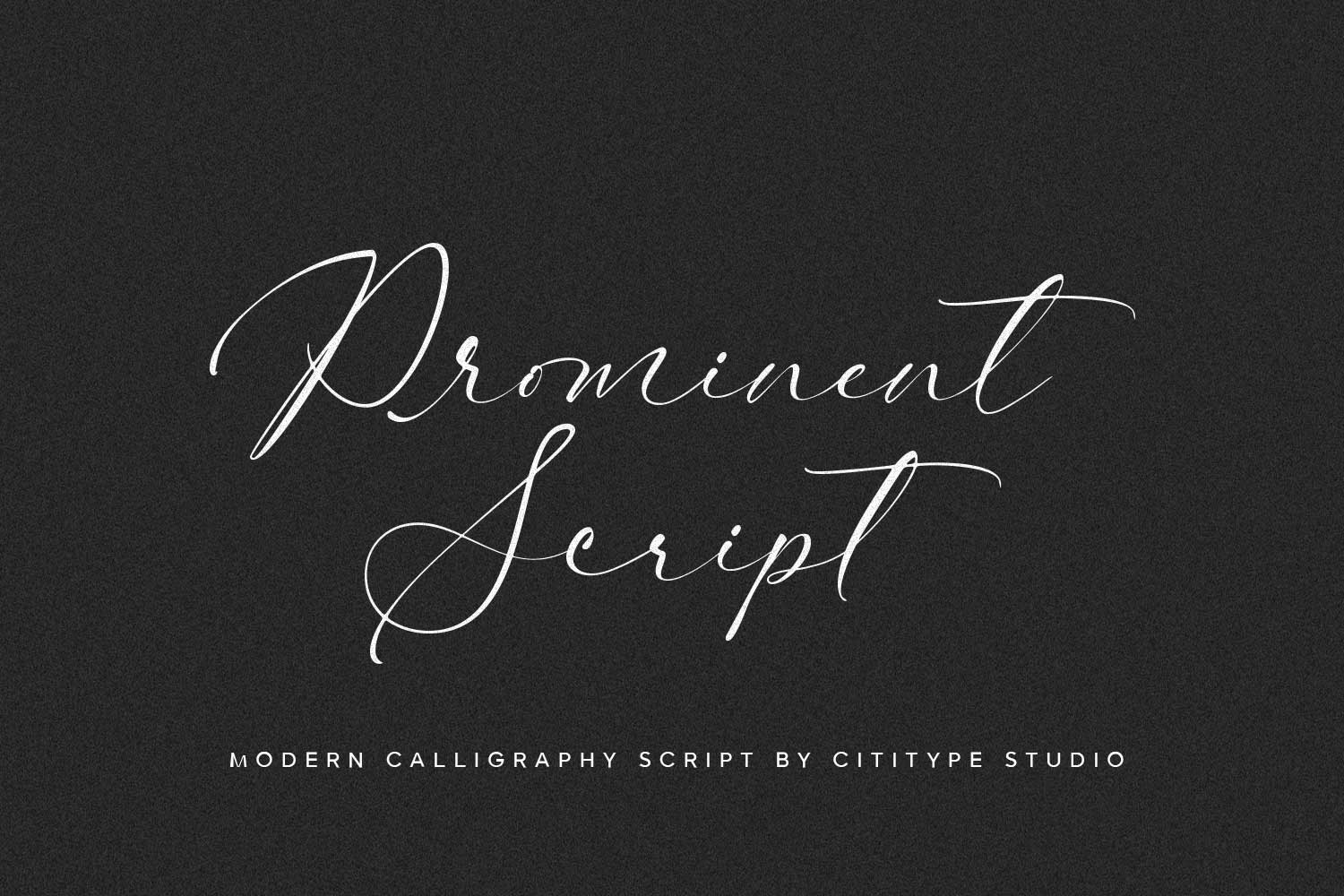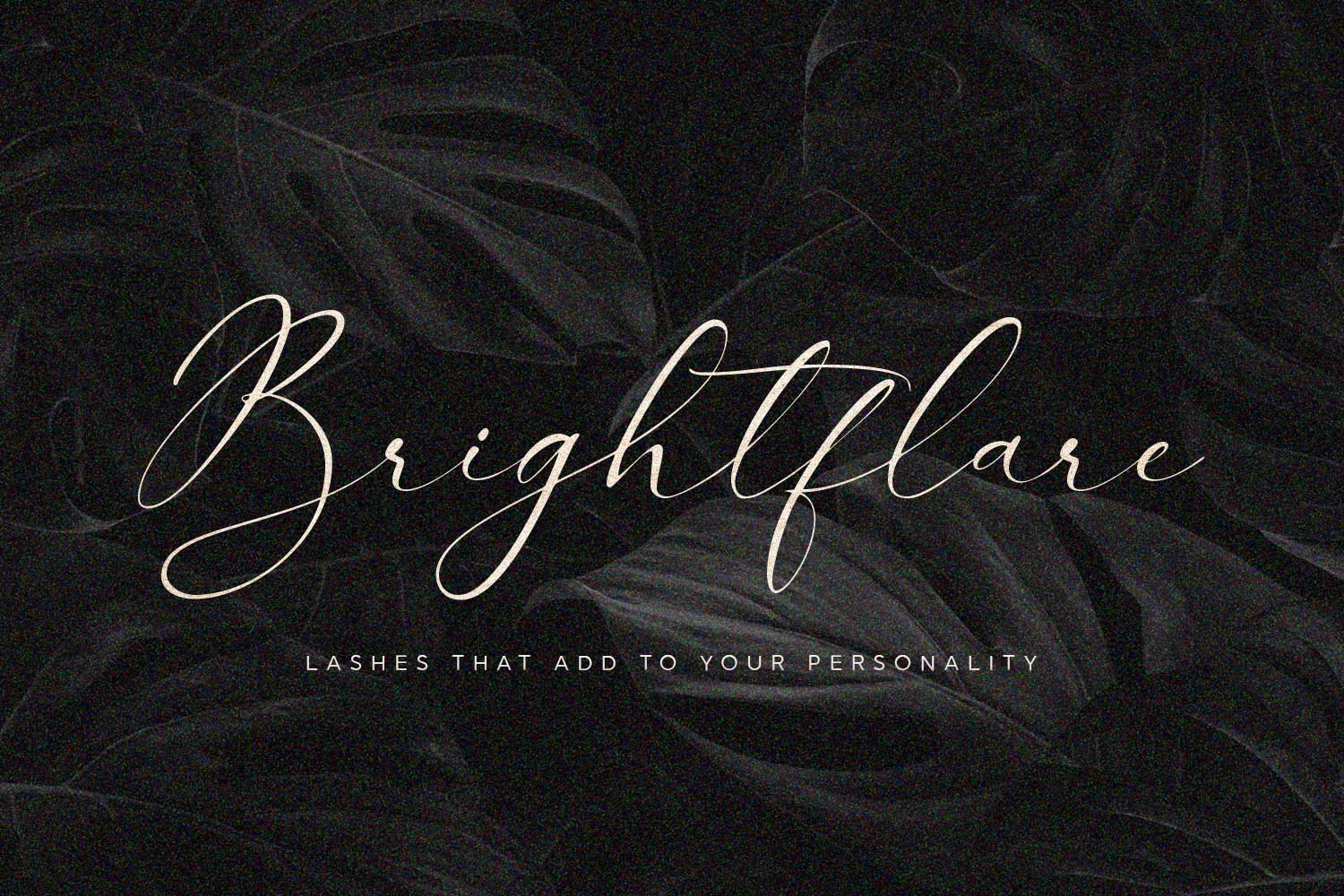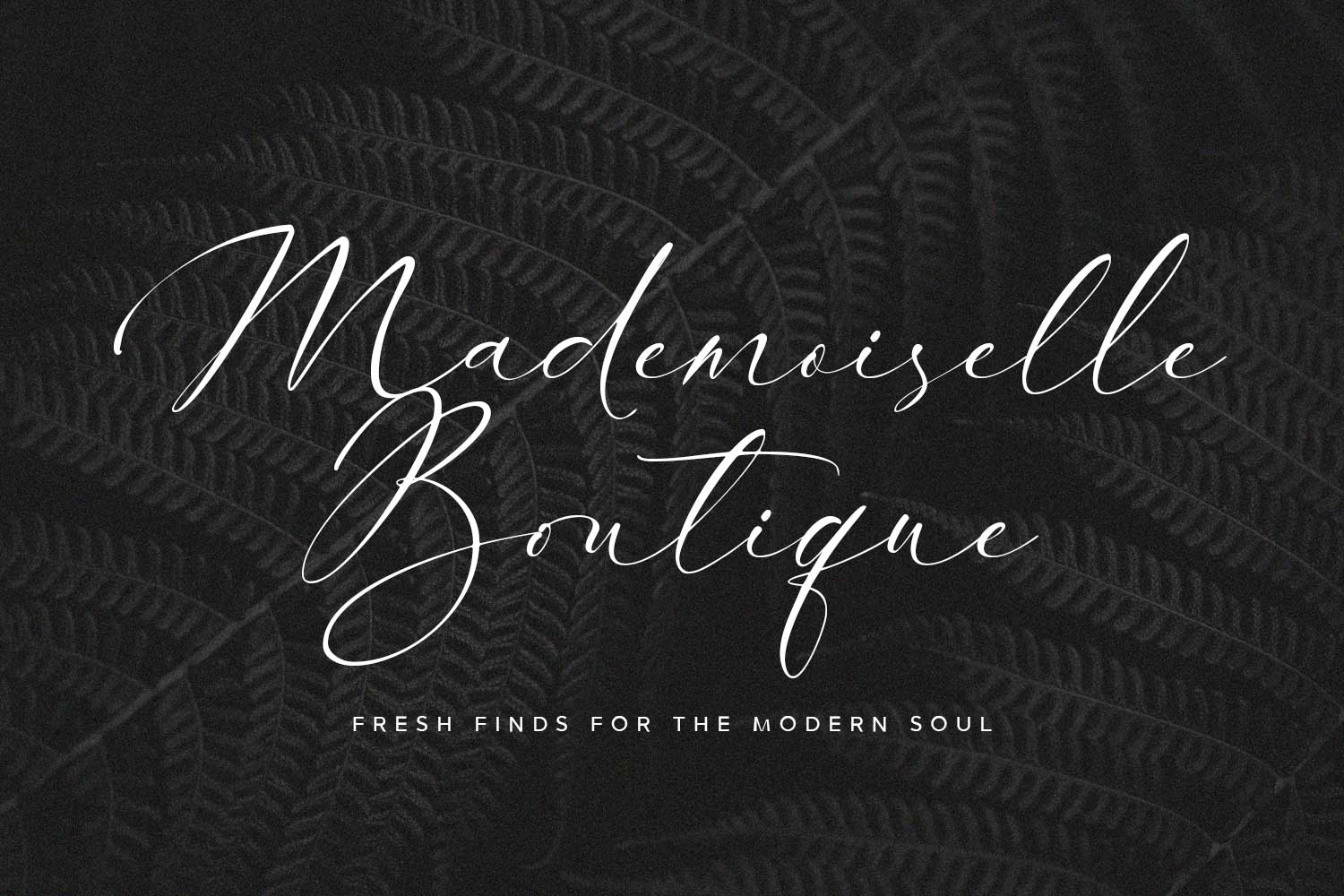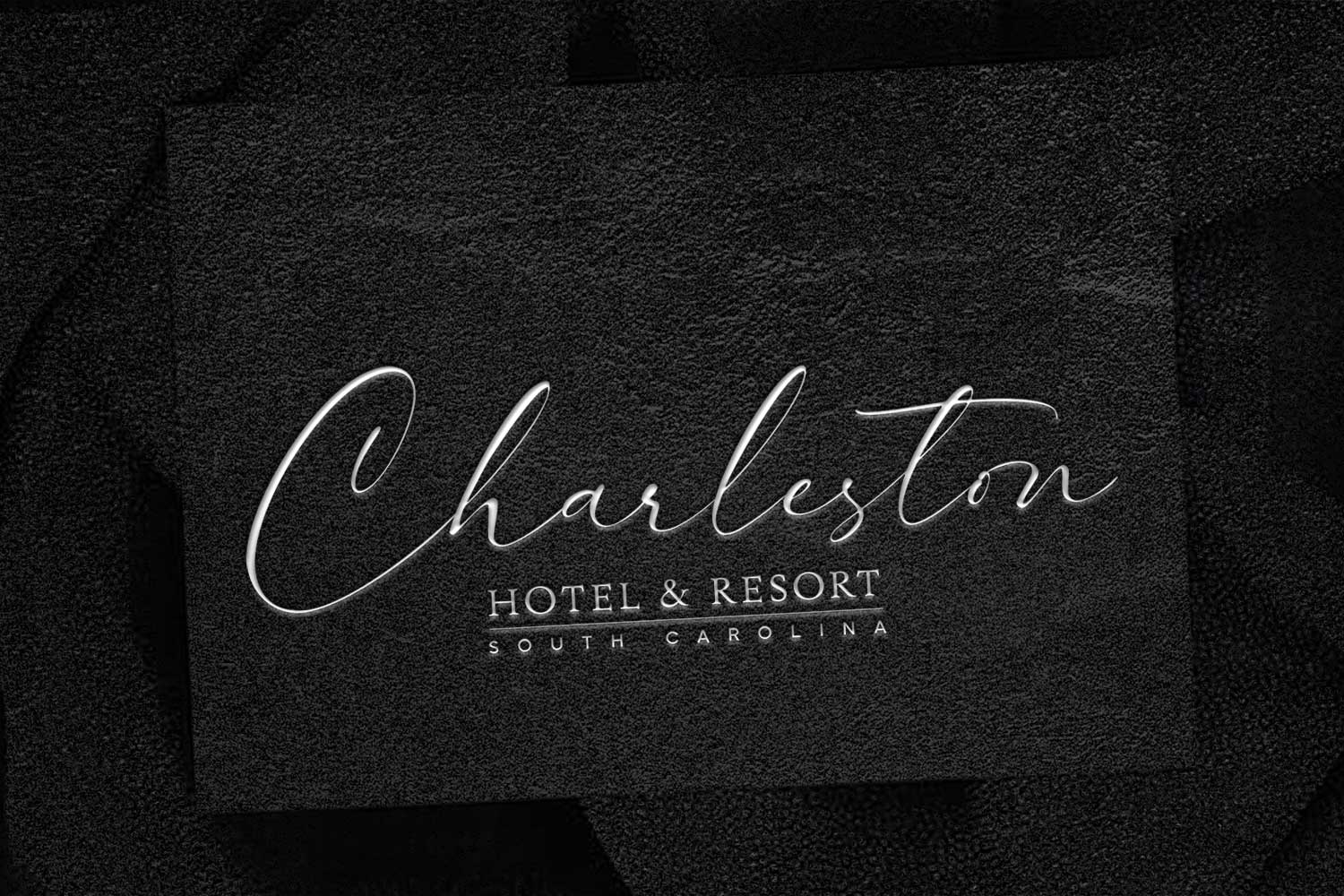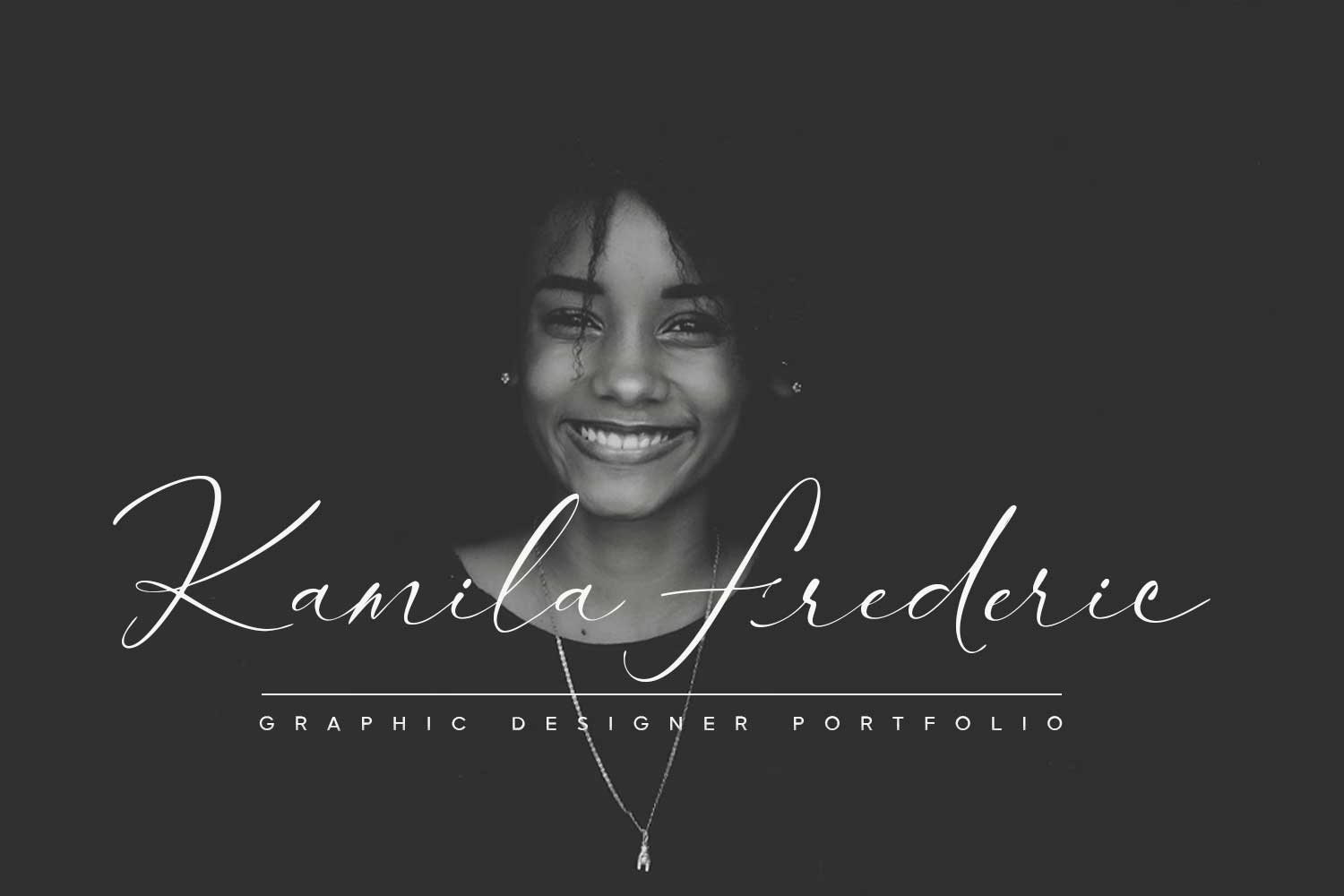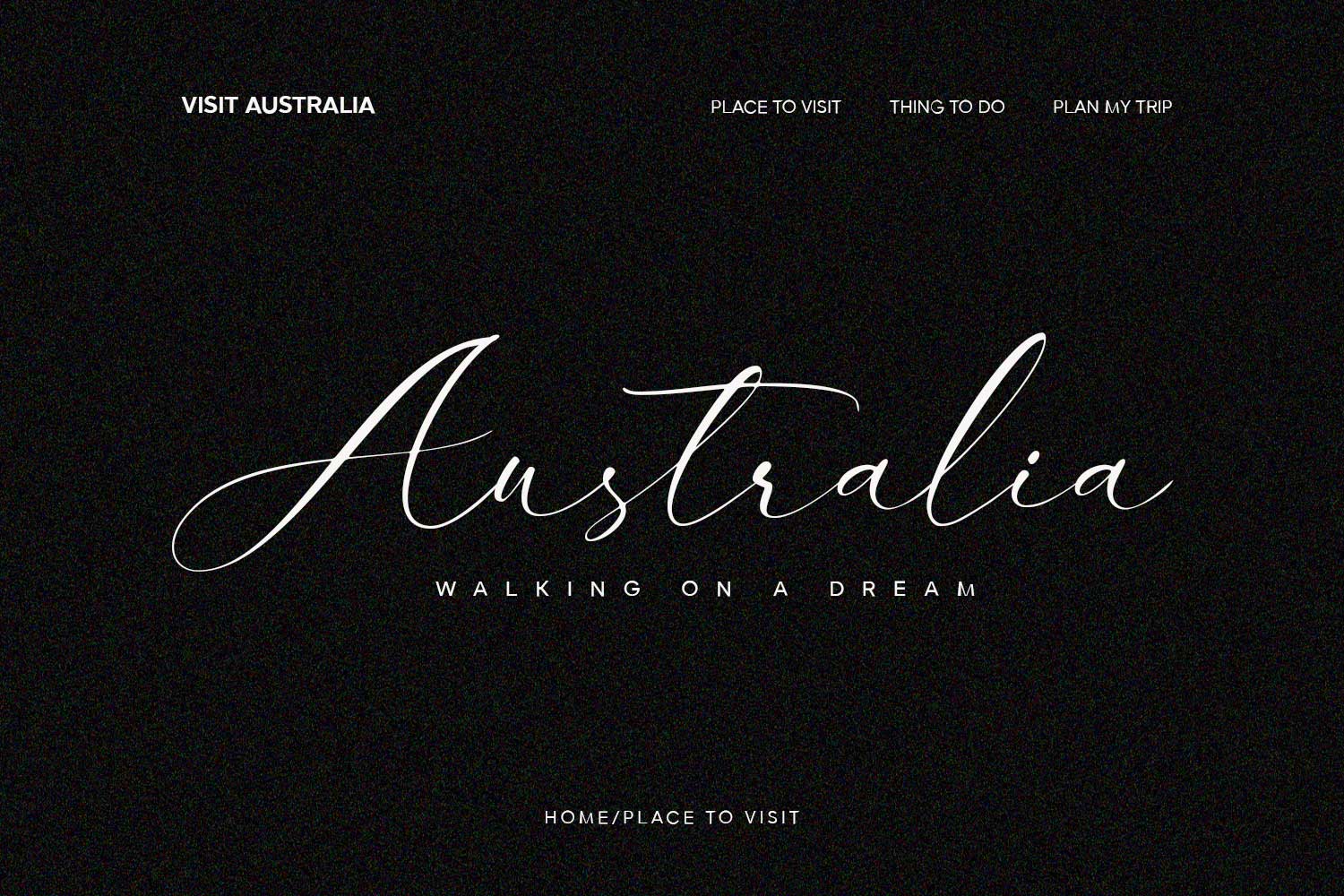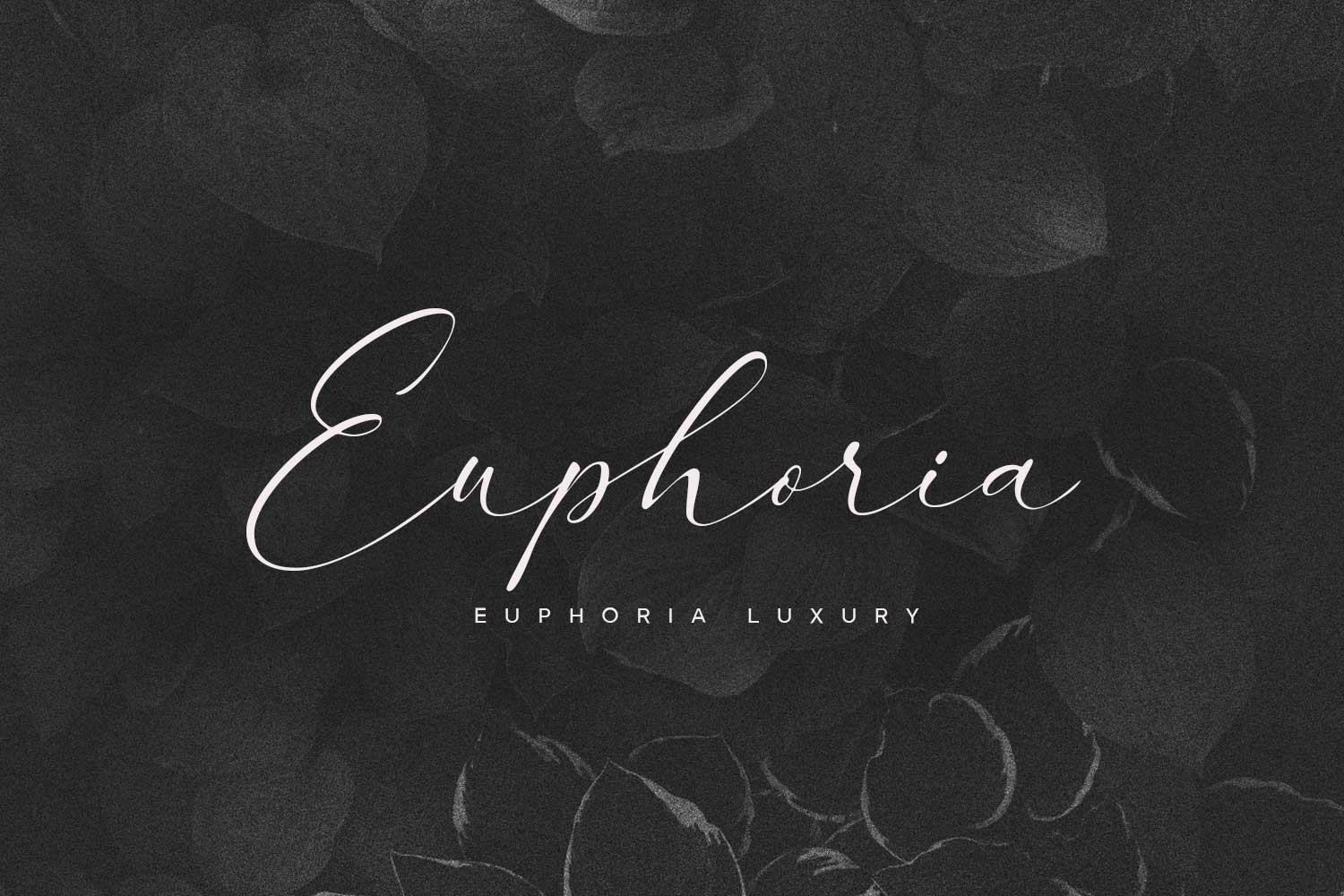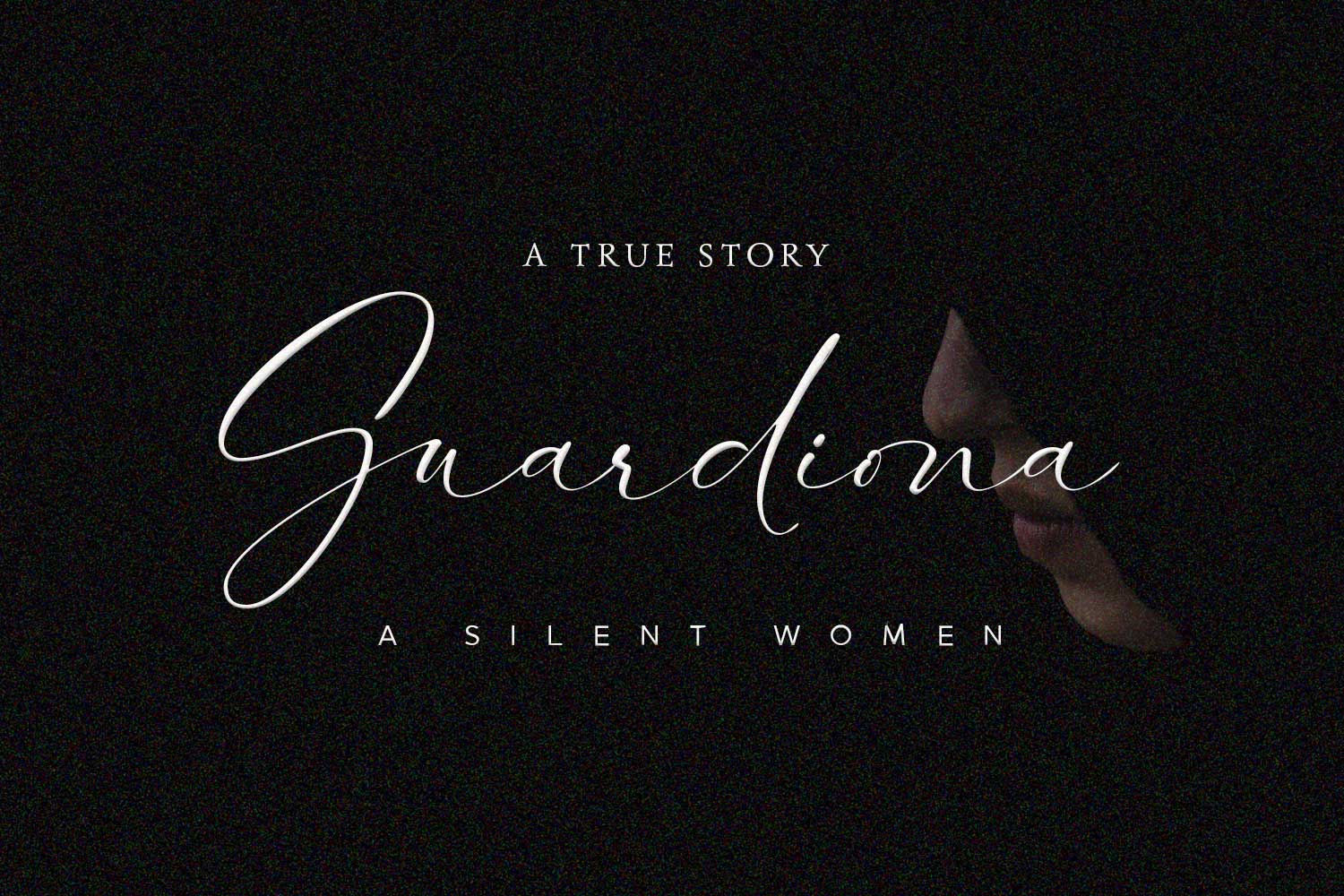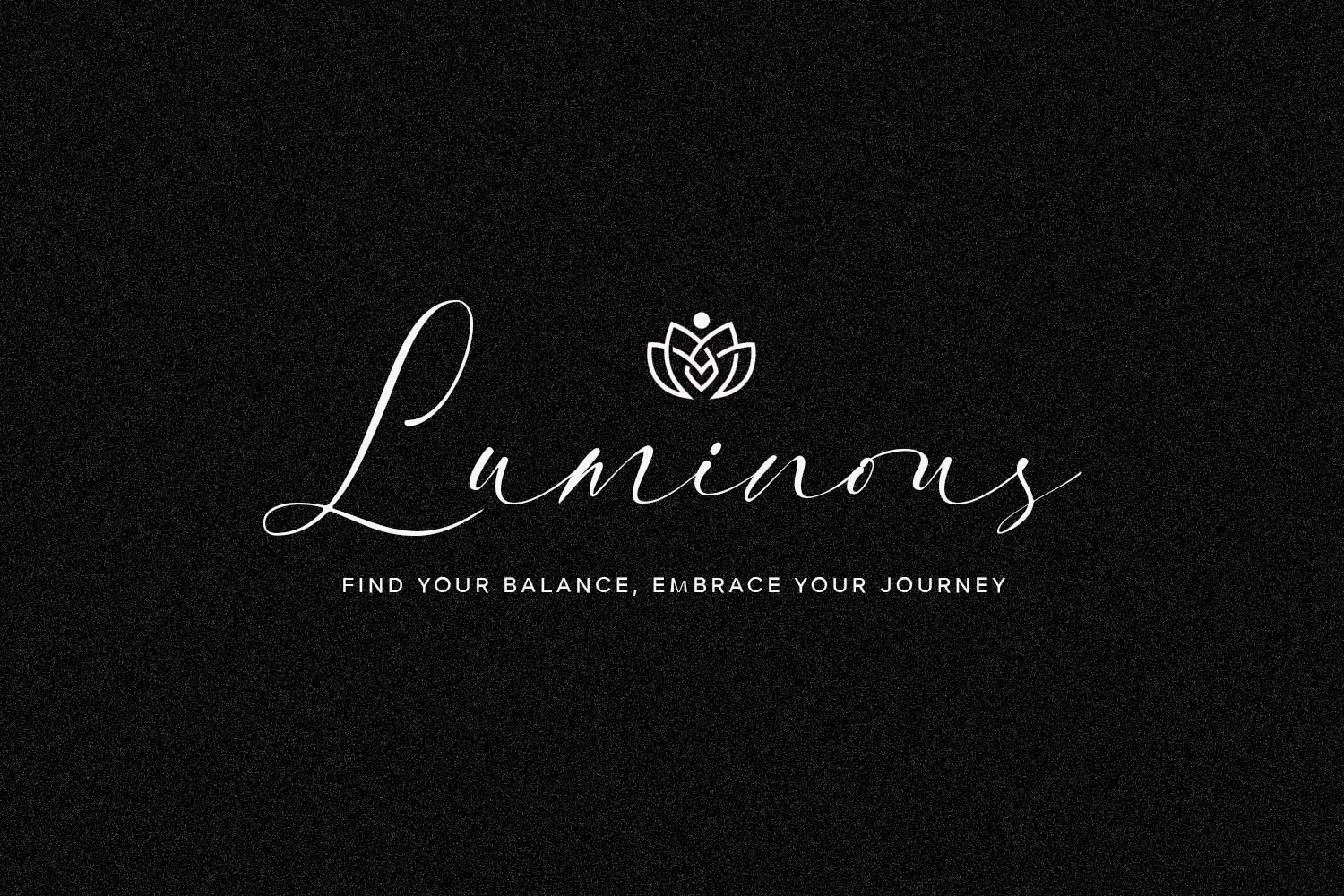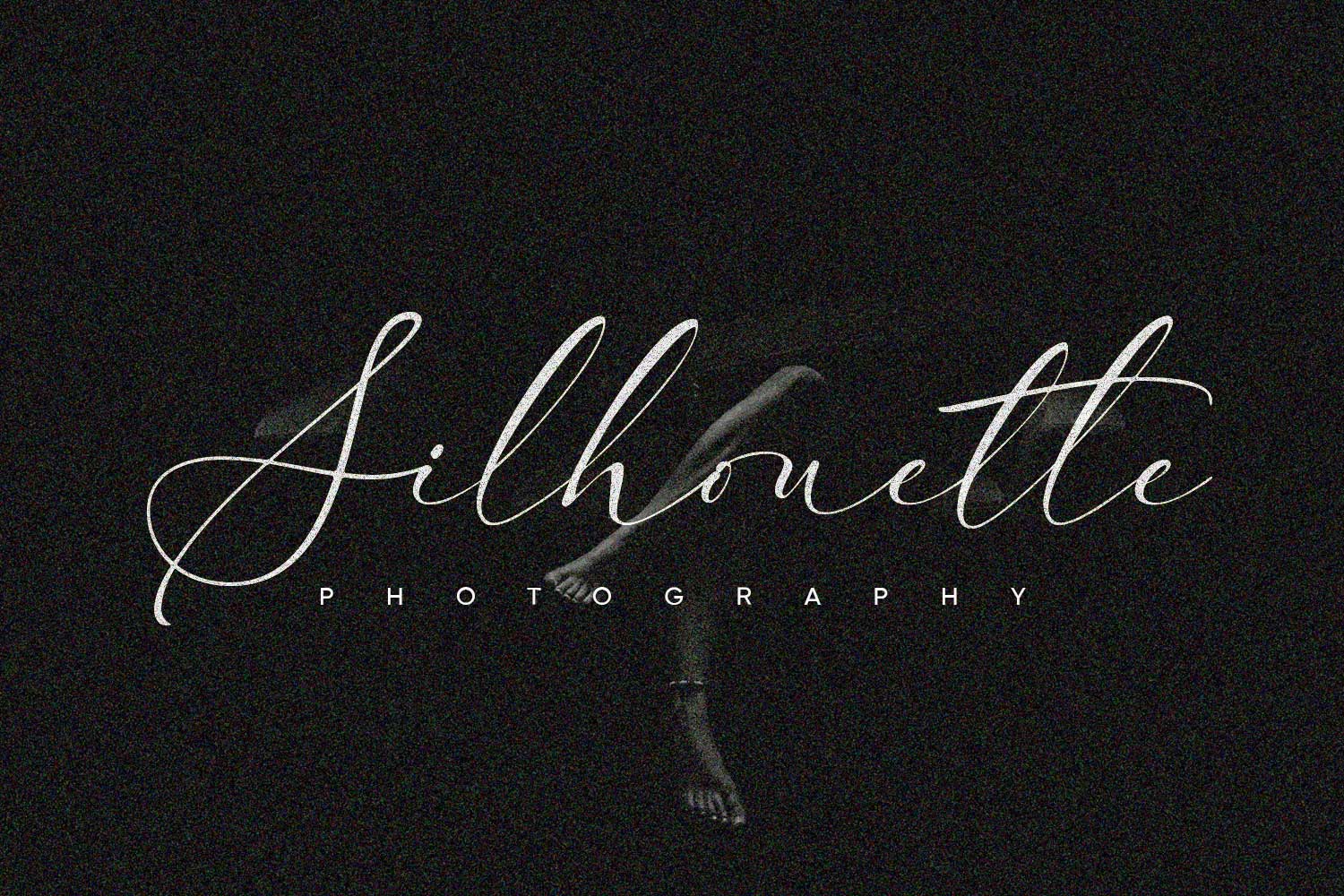
- Prominent – Modern Calligraphy Script
Introducing Prominent Modern Calligraphy Script, an enchanting typeface that radiates elegance and sophistication. This exquisite script captures the fluidity and charm of modern calligraphy, making it ideal for projects that require a touch of feminine refinement. With its stylish shapes, smooth curves, and well-balanced ascenders and descenders, “Prominent” ensures a harmonious and natural writing style that enhances both readability and aesthetic appeal.
Prominent stands out with its extensive range of ligatures and alternate characters, offering seamless connections for a delicate, hand-drawn appearance. This versatile typeface includes OpenType features such as alternates and multilingual support, ensuring ease of use in modern design software. Perfect for high-end branding, invitations, stationery, and packaging designs, “Prominent” is a timeless blend of classic calligraphy and contemporary style, designed to elevate any project with a touch of elegance and feminine sophistication.